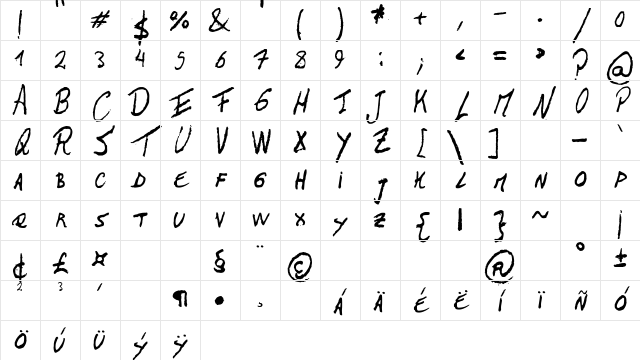
The Left-Handed Regular Free Font
The Left-Handed Regular Regular
Design Context for The Left-Handed Regular
The Left-Handed Regular flows with the natural rhythm of handwritten lettering, making it ideal for designs that call for warmth and personal expression.
Font Pairing: Combine The Left-Handed Regular with a simple geometric sans for maximum contrast - the tension between flowing curves and clean structure is a classic typographic pairing.
Pro Tip: Use The Left-Handed Regular for short runs of text - names, titles, or taglines. Extended body copy in script faces tires the eye quickly.